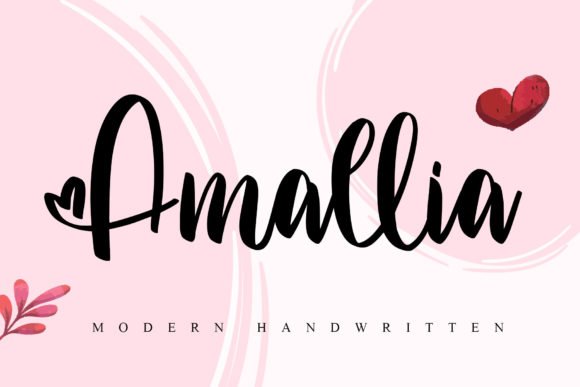
Unlock the Magic of Handwritten Charm
Imagine you’re brainstorming ideas for a new branding project, and suddenly, the perfect font pops into your mind. You envision a warm, inviting, and elegant look that sets the tone for your client’s entire brand identity. For designers, finding that perfect font can make all the difference between a good project and a great one.
Enter Ammallia Font, a beautifully crafted handwritten font that’s sure to captivate your audience. This PUA encoded font is a treasure trove of glyphs and swashes, waiting to be explored and added to your designs. Whether you’re working on a logo, brochure, or website, Ammallia Font is the perfect addition to elevate your project and leave a lasting impression.
With Ammallia Font, you’ll have endless possibilities to create unique and captivating designs that stand out from the crowd. Its versatility and charm make it a valuable asset for any designer looking to add a touch of personality to their work.
Ammallia Font Key Features
- Unique Characteristics: Ammallia Font features a unique blend of traditional and modern design elements, with intricate details and ornaments.
Ammallia Font Review
I recently had the chance to work with the Ammallia font, and I must say it’s a unique addition to any design project. ✨ One of its standout features is its elegant, cursive script that can add a touch of sophistication to headings and titles. The font’s fluid curves and dynamic letterforms make it perfect for creating a sense of movement and flow in your designs.
Another great aspect of Ammallia is its versatility. ✨ It comes in a range of weights and styles, from light to bold, making it easy to customize to suit your design needs. Whether you’re creating a logo, brochure, or website, Ammallia is sure to deliver a professional and polished look.
What Doesn’t Work So Well:
While Ammallia is a great font, there are a few limitations to keep in mind. ⚠️ For one, it may not be the best choice for text-heavy content, as the cursive script can make it difficult to read at small font sizes. Additionally, the font’s dynamic letterforms can sometimes make it challenging to pair with other fonts, so you may need to be careful when combining Ammallia with other typefaces.
- May not be suitable for text-heavy content
- Can be challenging to pair with other fonts
Overall, I’m impressed with the Ammallia font. Its unique design and versatility make it a great addition to any designer’s toolkit. While it may have some limitations, these are easily outweighed by its many benefits. If you’re looking to add a touch of elegance and sophistication to your designs, Ammallia is definitely worth considering.
Ammallia Font: A Practical Application Guide
Tips for Getting the Most Out of Ammallia
To get the most out of Ammallia, use it in combination with bold or italic styles to create visual interest. Experiment with different font sizes and colors to create a unique look.
Ammallia is ideal for use in branding, marketing materials, and creative projects. Use it to create eye-catching headlines, titles, and body text.
Lato is a modern sans-serif font that is highly customizable. It has a clean and elegant feel that works well in both digital and print designs. Lato is more rounded and friendly than Ammallia Font, which has a more angular feel.
Is Ammallia Font available in different weights and styles?
Yes, Ammallia Font is available in multiple weights and styles, including light, regular, bold, and italic. You can use these different weights and styles to create visually appealing typography in your designs.